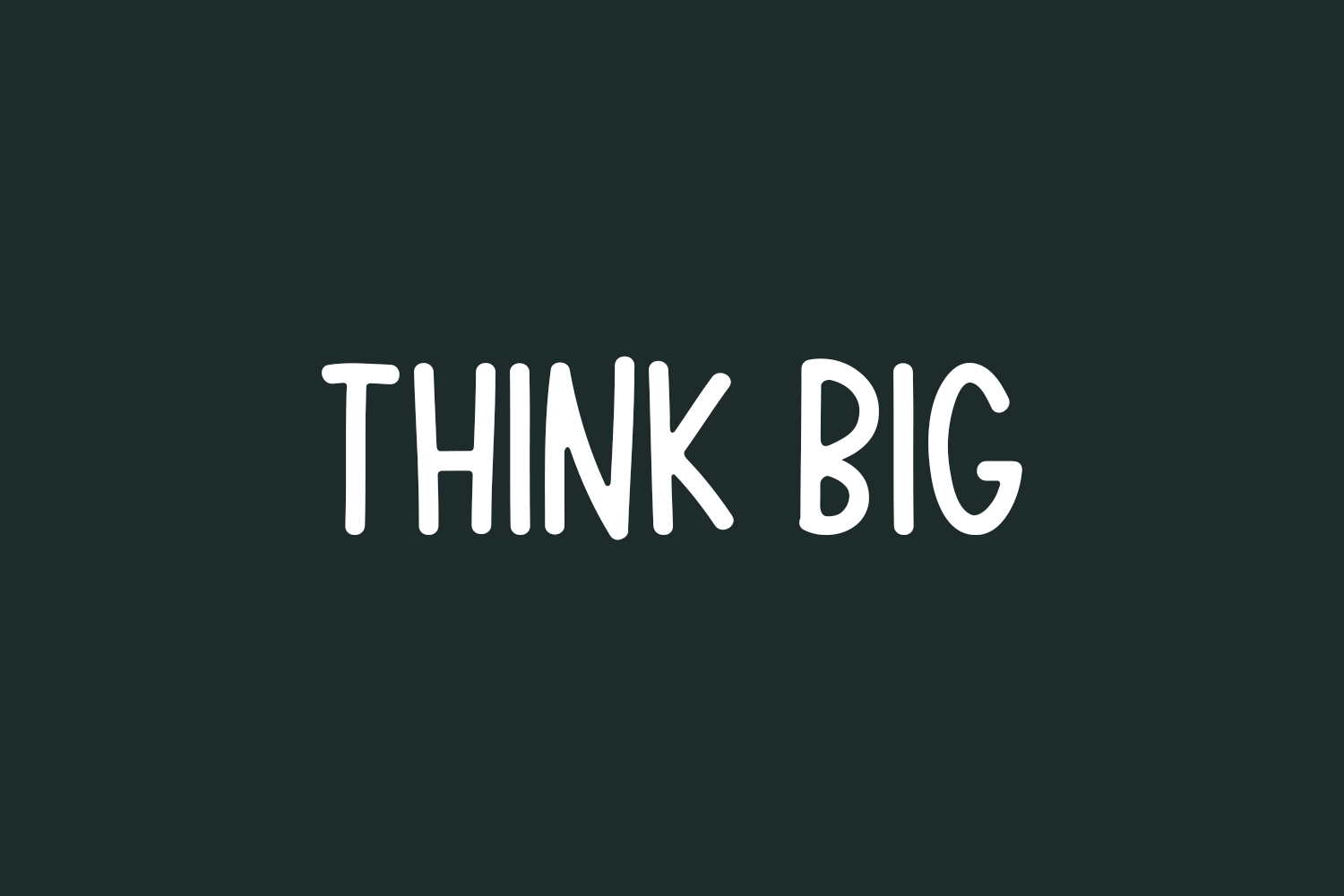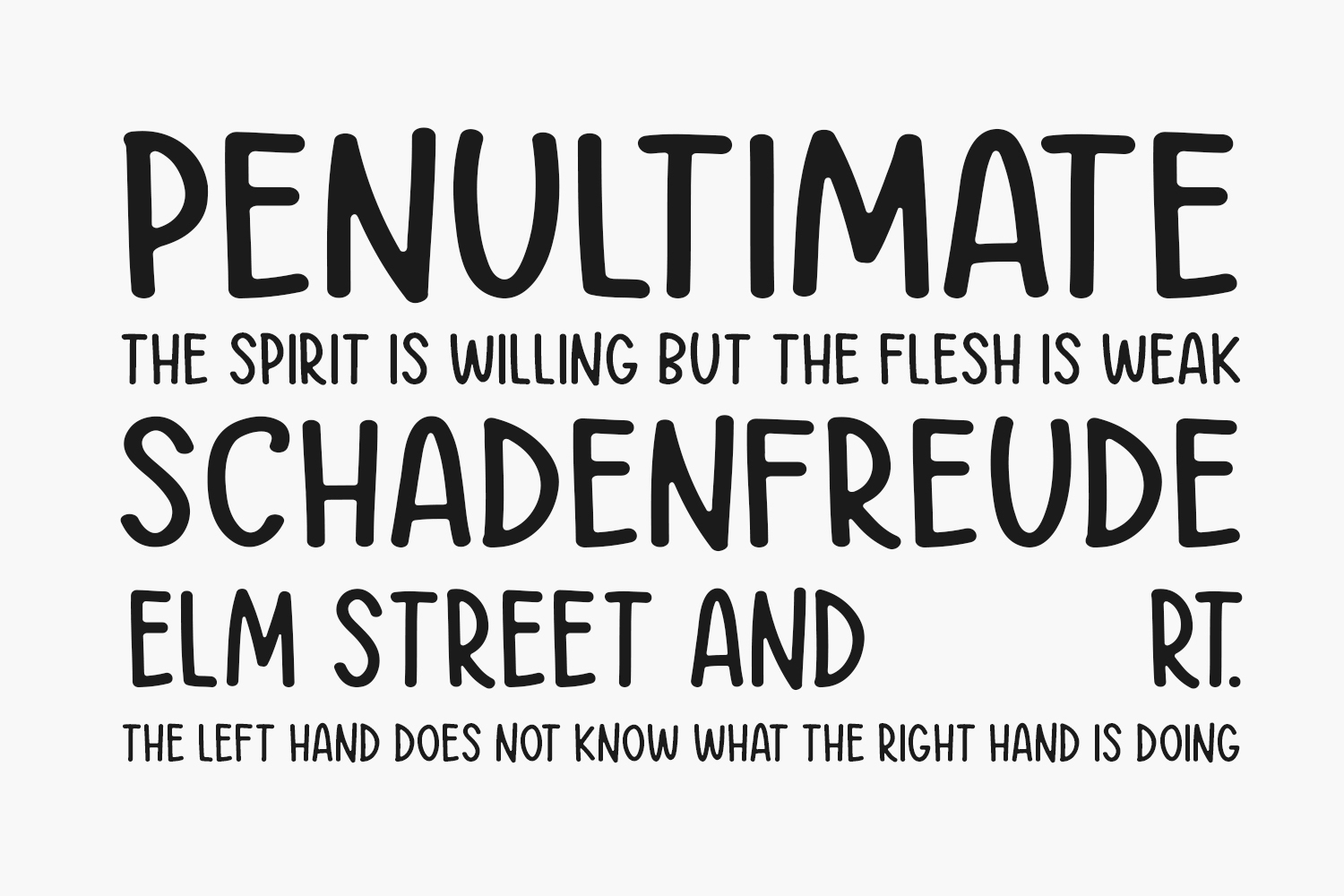
Think Big Free Font is a unique display font. Whether you’re using it for crafting, digital designing, presentations, or greeting card making, it’s perfect. Think Big Free Font was designed by Md Shohail Bhuian is a demo and free for personal use only. Please purchase the full version for commercial use.